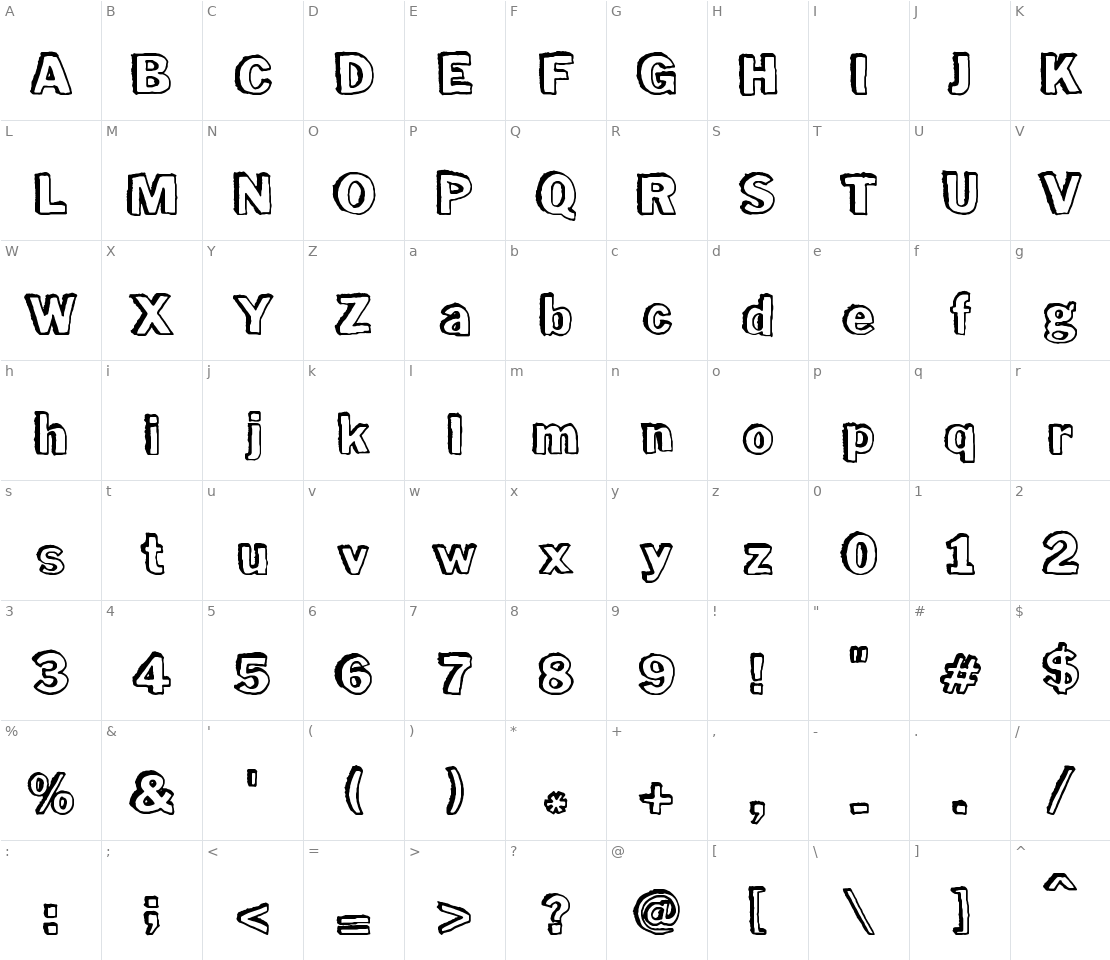
Purple Drank
Purple Drank is a playful, hand-drawn comic face from Xerographer Fonts with loose outline letterforms that look like they were sketched in one pass with a felt-tip pen. The casual, slightly wobbly strokes give it a lighthearted energy that works naturally for comic lettering, zines, posters, and informal headlines where polish would actually work against you.